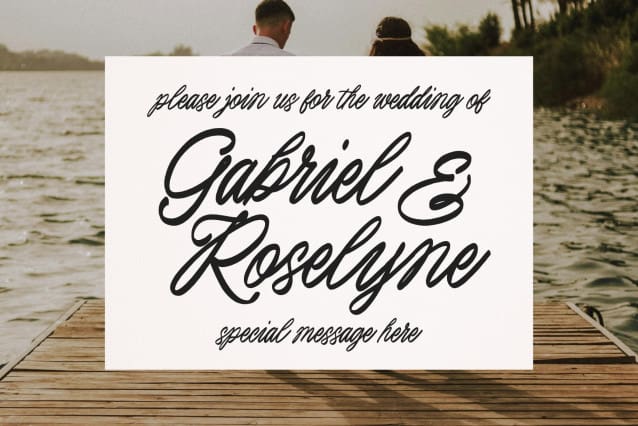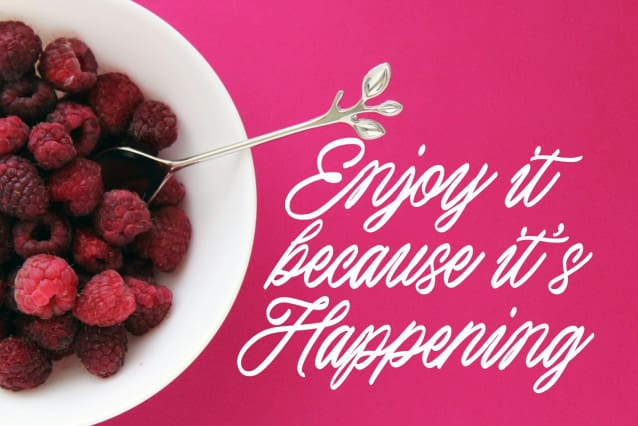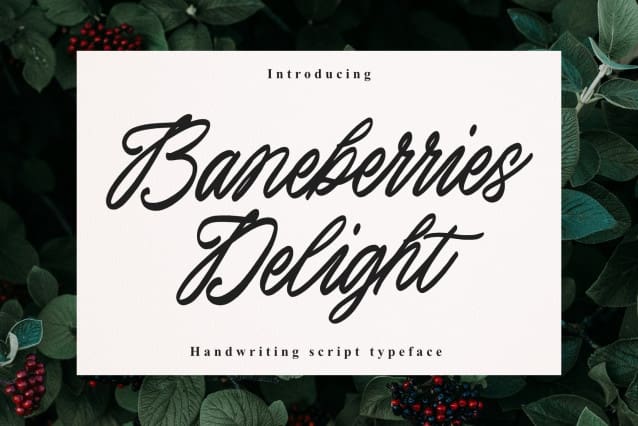
Baneberries Delight Font
Baneberries Delight Font is a charming and approachable handwriting script typeface that embodies simplicity and ease. With its casual, hand-drawn letterforms and smooth flow, this font brings a sense of comfort and familiarity to your designs. Inspired by the warmth of handwritten notes and everyday moments, Reliable Wednesday is perfect for projects that aim to feel personal, friendly, and authentic.